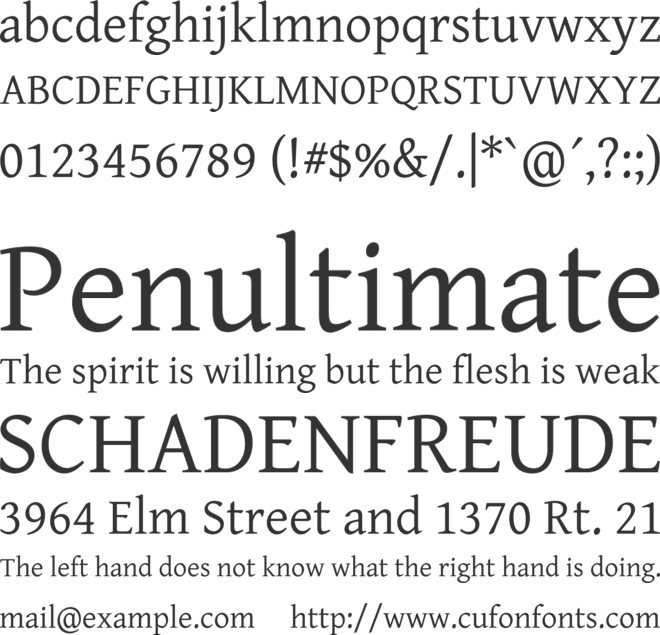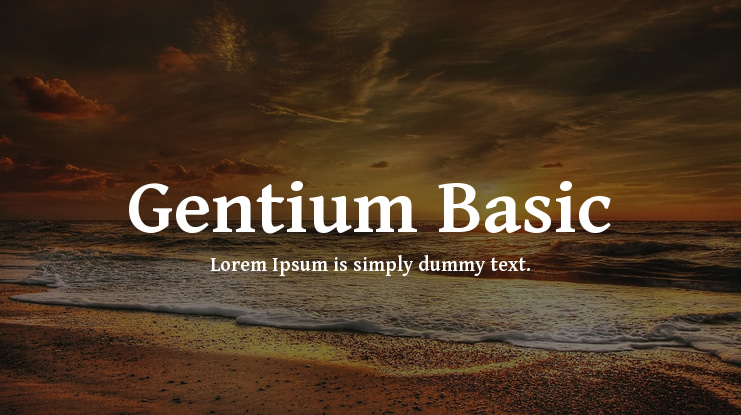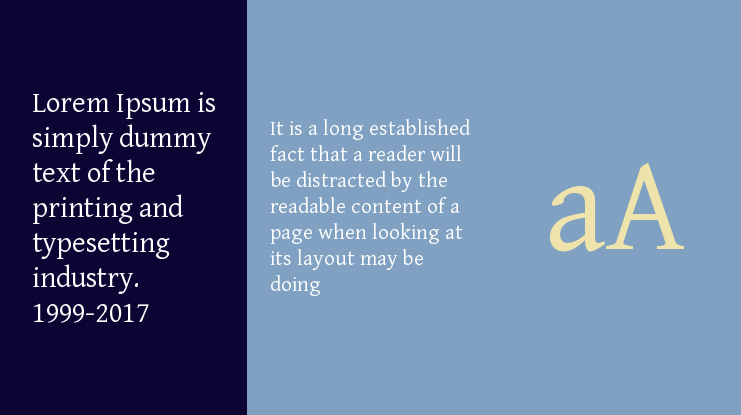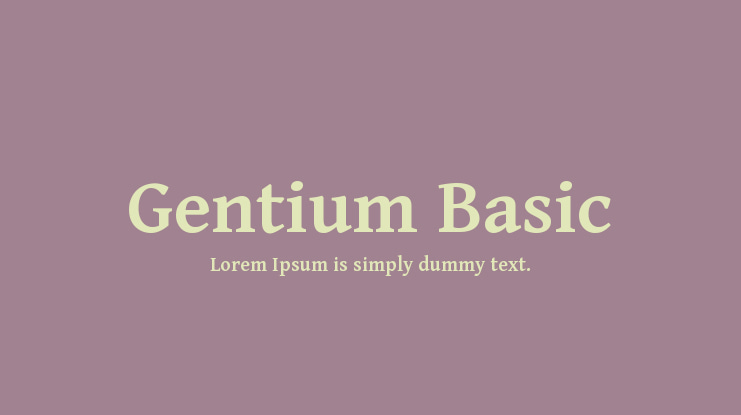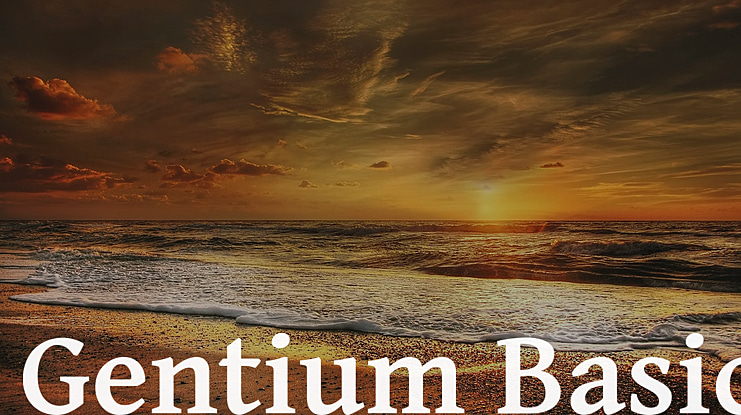
J. Victor Gaultney and Annie Olsen
The Gentium Basic font family is based on the original Gentium design, but with additional weights. The family comes with a complete regular, bold, italic and bold italic set of fonts.
The supported character set, however, is much smaller than for the main Gentium Plus fonts. These "Basic" fonts support only the Basic Latin and Latin-1 Supplement Unicode ranges, plus a selection of the more commonly used extended Latin characters, with miscellaneous diacritical marks, symbols and punctuation. In particular, these fonts do not support full extended Latin IPA, complete support for Central European languages, Greek and Cyrillic.
The "Gentium Book Basic" family is very similar but has a slightly darker weight.